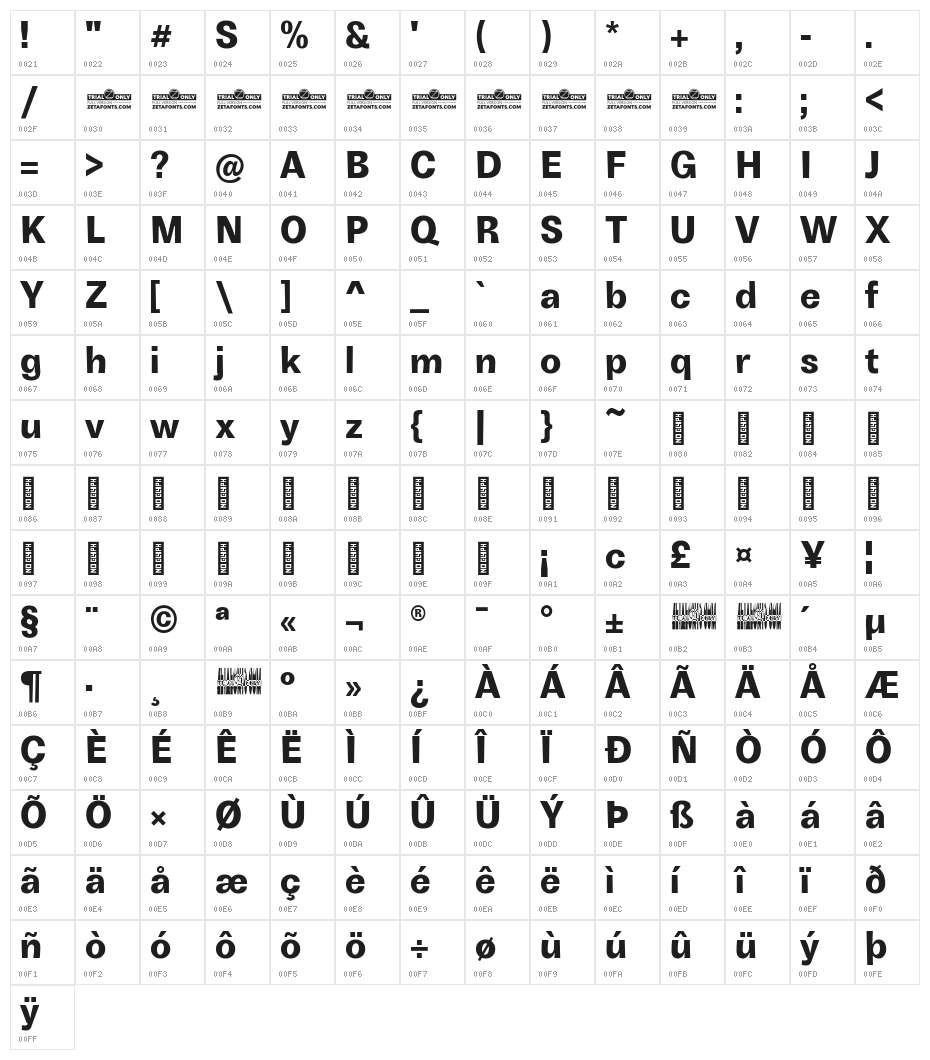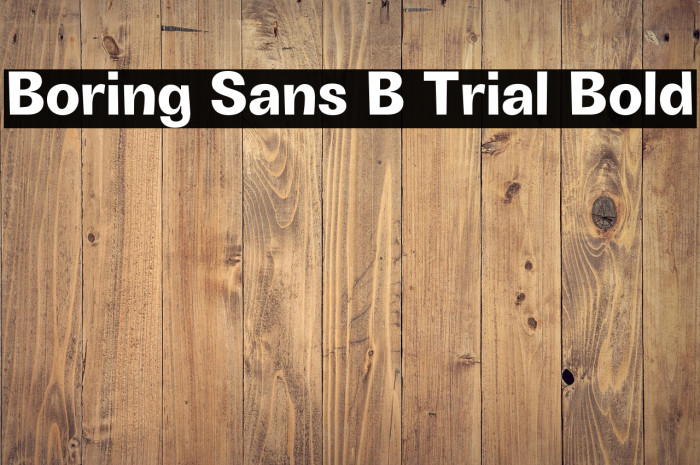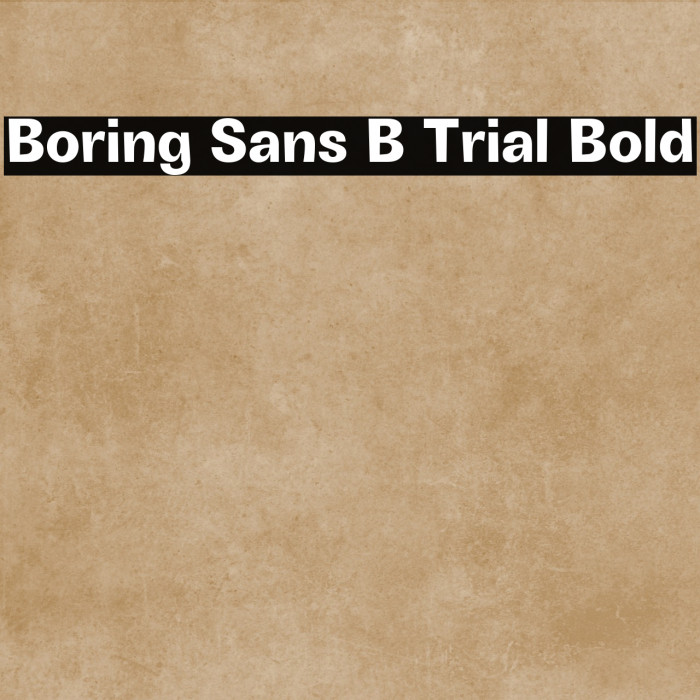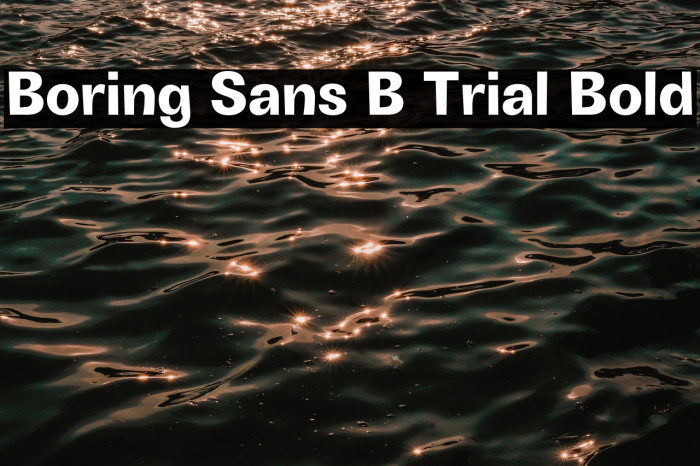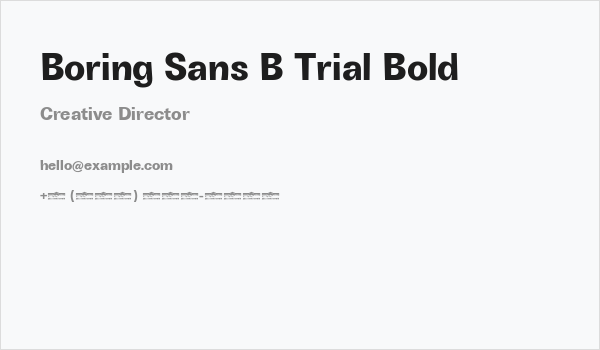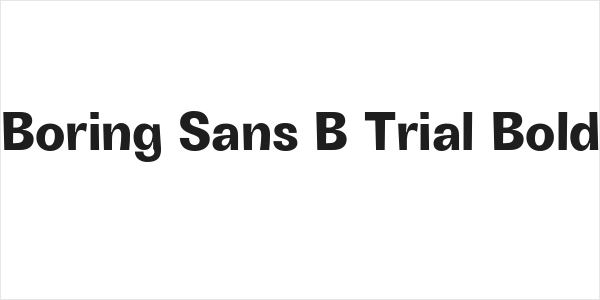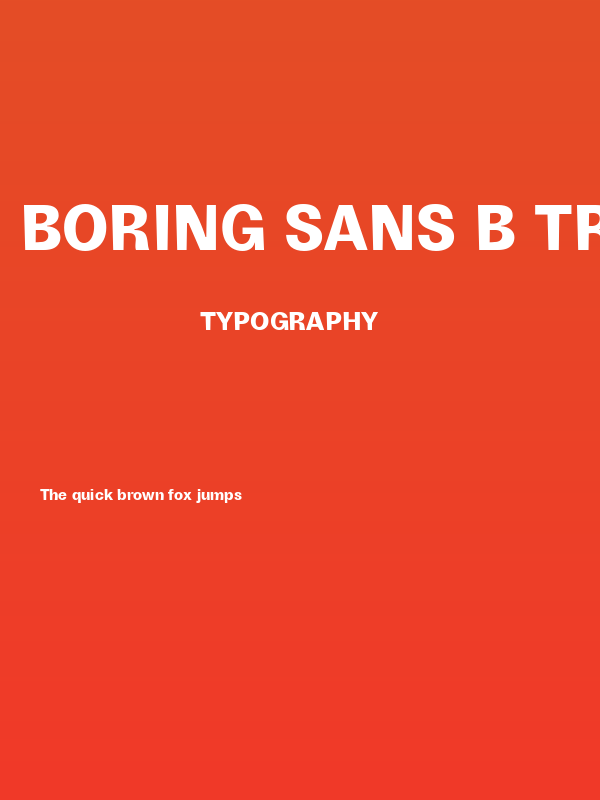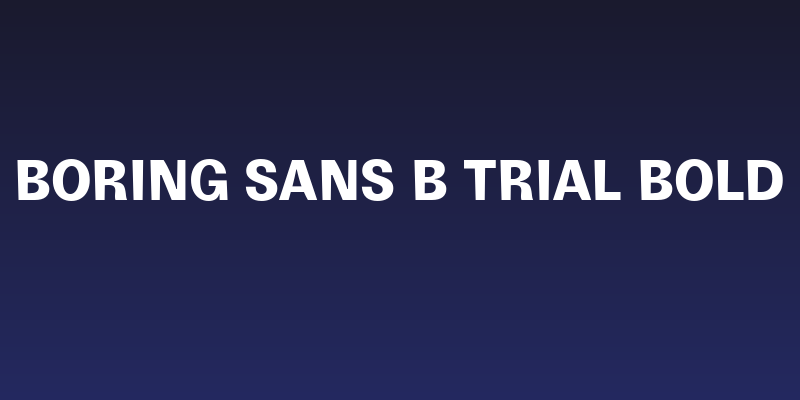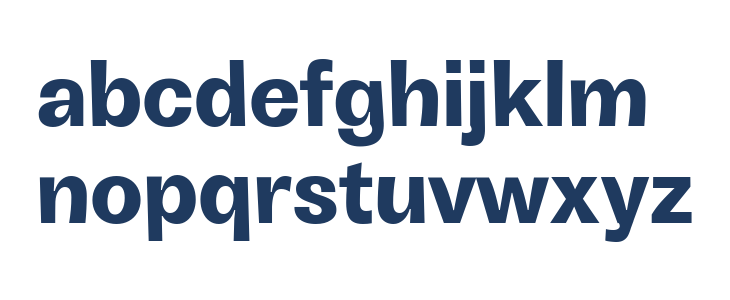
Boring Sans B Trial Bold Font
Boring Sans B Trial Bold Description
This typeface features a bold, sans-serif style with clean, geometric lines and uniform stroke widths. The characters are well-proportioned, offering a modern and straightforward appearance. Uppercase and lowercase letters maintain a consistent height, contributing to a balanced and cohesive look. The numerals and special characters are designed with the same attention to detail, ensuring readability and versatility across various applications. The font's simplicity and clarity make it suitable for both digital and print media, providing a professional and contemporary aesthetic.
| Use Case | Headlines, Logos, Digital Media |
| Proposed Projects | Ideal for branding, advertising, web design, and editorial projects where clarity and modernity are key. |